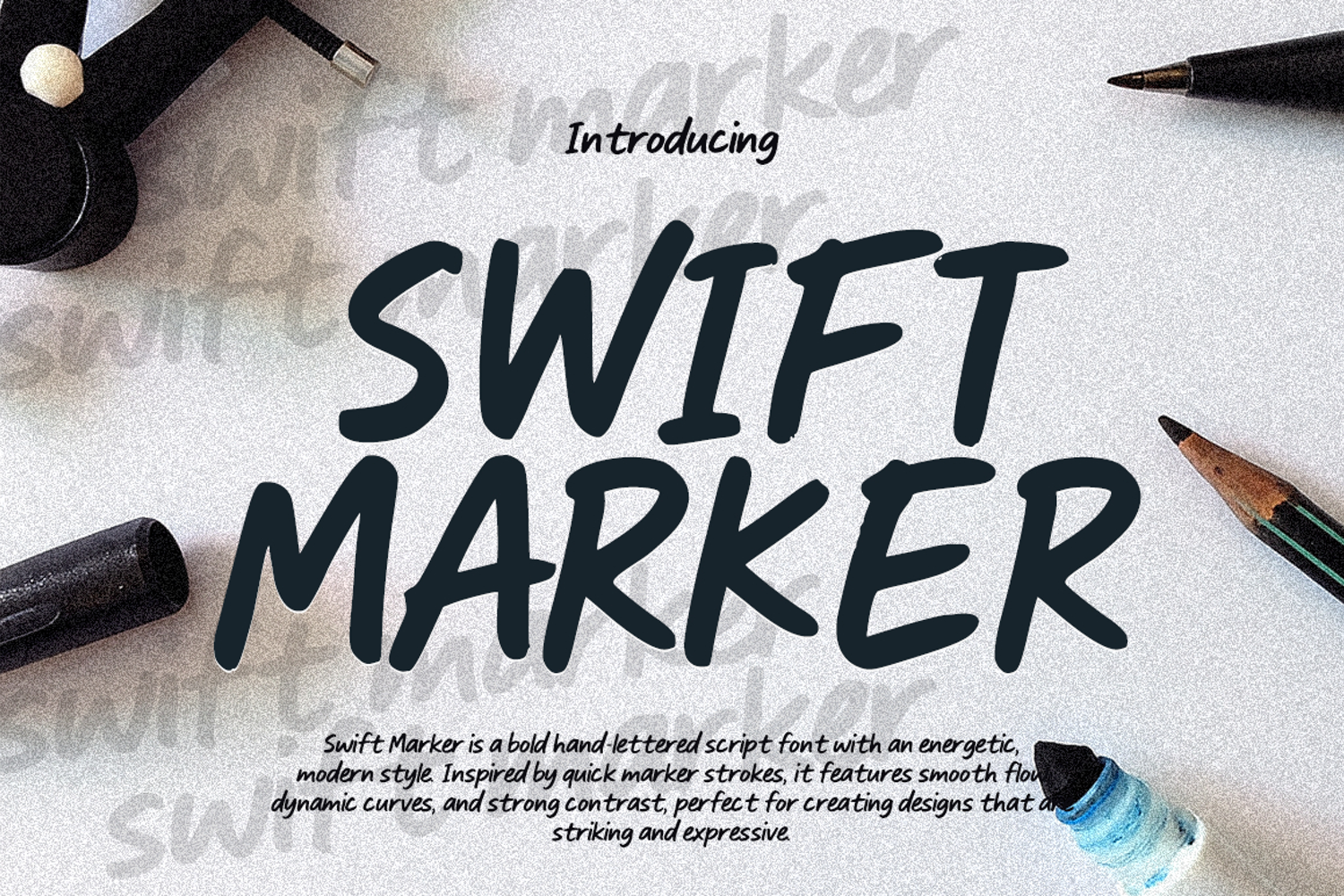
Simple stylish
A bold hand-lettered script font with an energetic modern style. Inspired by quick marker strokes, it features smooth curves, dynamic flow, and strong contrast, making it ideal for creating designs that are bold, striking, and expressive.